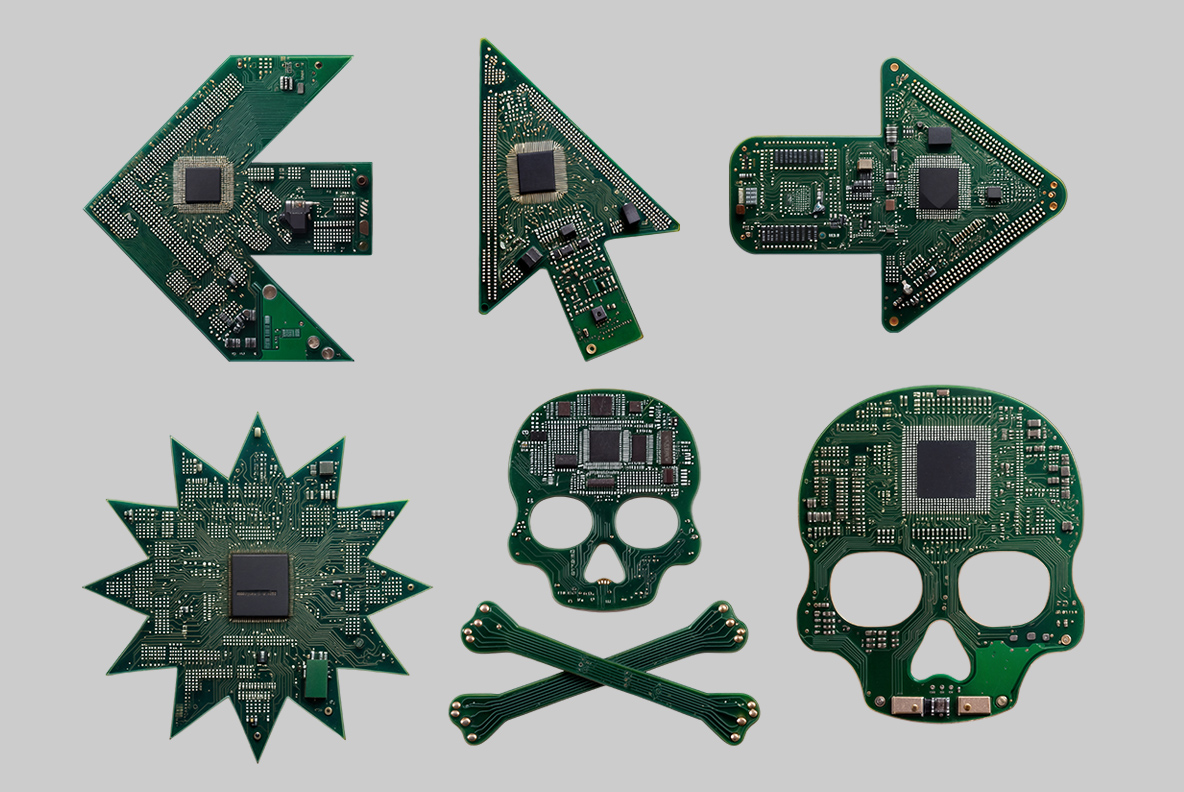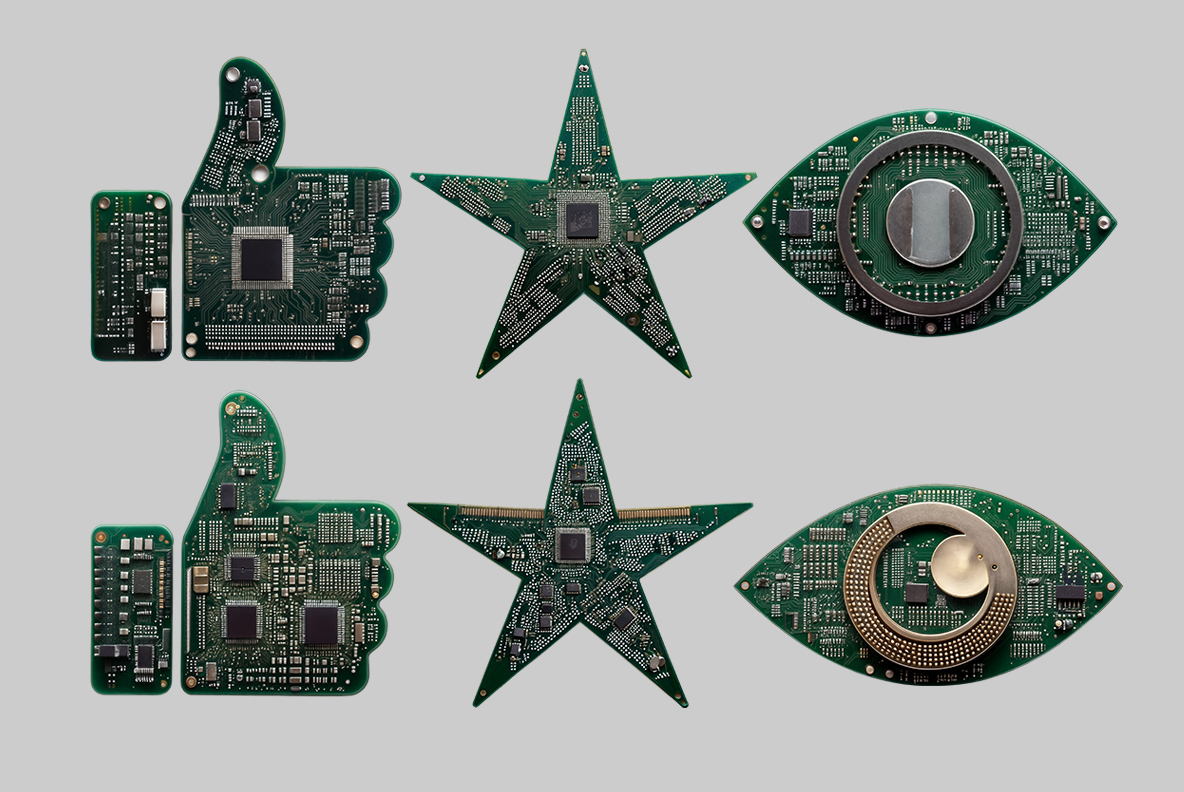
Microchip Font. Type in Circuits, Speak in Innovation.
Microchip Font is like a tech geek’s dream come true — letters built from actual circuit boards! It’s the perfect mix of nerdy charm and futuristic cool. Your text will spark with electric vibes, like it’s about to power up and take over the world (or at least your design).
Spell it Out with Silicon: Microchip Font for the Next Gen Thinkers
Microchip Font is not just a font — it’s a celebration of technology, a tribute to the tiniest, mightiest marvels of the modern world. Imagine if your motherboard went to art school, took up calligraphy, and decided to express itself on your screen. That’s Microchip Font for you — a symphony of semiconductors, a ballet of circuits, a visual love letter to the brainy brilliance that powers your devices.
Let’s get real: chips run the world. Whether you’re scrolling through social media, launching a rocket, or just warming up yesterday’s pizza in a smart microwave, a chip is making it happen. And now, with Microchip Font, those chips get to speak — in bold, beautiful, meticulously designed letters that echo the complexity of the AI technologies we use daily.
Circuit Board Alphabet
Your Words, Hardwired: Microchip Font is the Future of Typography
Each character in Microchip Font is a miniature masterpiece. The letter F isn’t just an F; it’s a tiny labyrinth of microcircuits, transistors, and data pathways. The O isn’t just an O; it’s a hypnotic, donut-shaped motherboard, reminding you of the infinite loops your computer’s logic gates perform every second. And the N? Think of it as a pixelated handshake between human creativity and AI ingenuity, a microcircuit bridge between silicon and imagination. The T stands tall like a processor tower, a monument to the power of integrated circuits that drive everything from your smartphone to space probes.
Microchip Open-Type Font description
The Microchip Font is a high-resolution OpenType typeface that includes uppercase letters, numbers, and basic punctuation, with each character measuring approximately 800 pixels in height. A full preview of the available letters and glyphs is included for your reference.
Circuit Board Alphabet
The Only Font That Speaks Binary Fluently.
What makes this font so unique is the way it blurs the line between functional hardware and aesthetic design. Each letter is crafted to look like it could actually do something. Maybe the P is plotting a startup, the R is rewriting your code, or the E is optimizing your search algorithm. It’s as if the entire alphabet got a degree in computer engineering and then said, “You know what? Let’s get artsy.”
Microchip Font isn’t just about looks, though. It’s about feeling. When you use this font, you’re sending a message: you’re bold, you’re innovative, you respect the science, and you’re not afraid to show it. Whether you’re designing a logo for an AI-powered app, creating a headline for a cutting-edge tech conference, or crafting a poster for your next robotics competition, Microchip Font doesn’t just speak — it transmits.
Circuit Board Alphabet
Type in Circuits, Speak in Innovation
And let’s not forget the humor in it all. I mean, how often do you get to type a love letter to your processor in a font that looks like it could double as a circuit diagram? It’s the kind of tongue-in-cheek, slightly nerdy, but absolutely brilliant design that makes people stop, smile, and say, “Wow, where did you get that font?”
So if you’re tired of the same old sterile sans-serifs and generic geometrics, if you’re ready to give your words a pulse — a spark, a jolt of integrated circuit energy — Microchip Font is your go-to. It’s the perfect marriage of form and function, art and technology, humor and sophistication. It’s a font that understands the future isn’t just coming — it’s here, and it’s built on the shoulders of tiny, tireless chips. So go ahead, make your motherboard proud. Type like a processor. Design like an AI. Speak the language of circuits, semiconductors, and microchips — with Microchip Font.